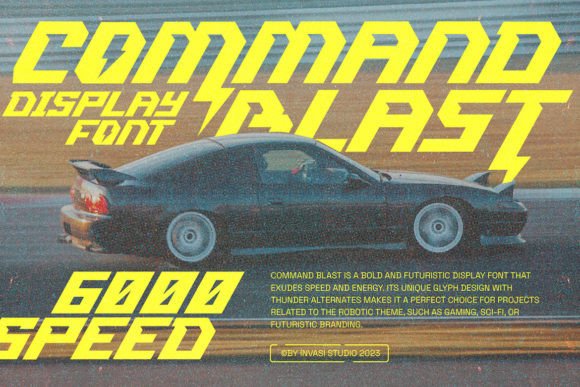
Step into the future with Command Blast Font, where boldness, futurism, and impact collide. This masterpiece is not just a font; it's a gateway to a world of thrilling designs that'll leave you and your audience in awe.
Unleash the power of its unique glyph design, armed with thunder alternates that infuse every word with dynamism and raw excitement. Command Blast is the ultimate weapon for your creative arsenal, ready to conquer any design challenge related to robotics, sci-fi, and futuristic branding.
Rev your engines and embrace the sleek, high-tech vibe that makes Command Blast the perfect companion for sports car enthusiasts, garages, and anything with a touch of speed. It's more than just a font; it's a declaration of your passion for all things fast and furious.
Open the doors to endless creative possibilities with Command Blast's alternate characters, ligatures, and Latin Multilingual Support. Explore uncharted design territories and let your imagination run wild, knowing that this font has your back.
Seize the opportunity to make an unforgettable statement with Command Blast Font. It's not just a font; it's a gateway to a world of awe-inspiring designs that will leave a lasting impression. Embrace the power, embrace the future, embrace Command Blast.